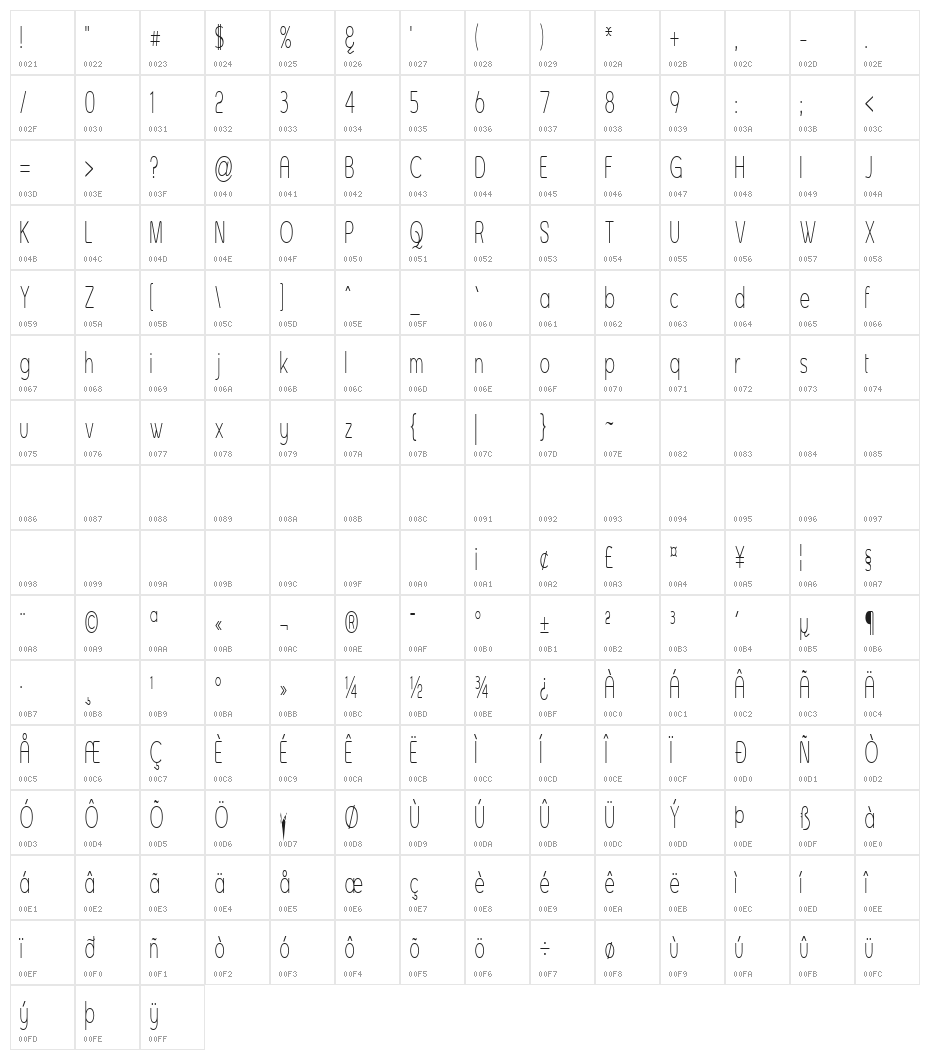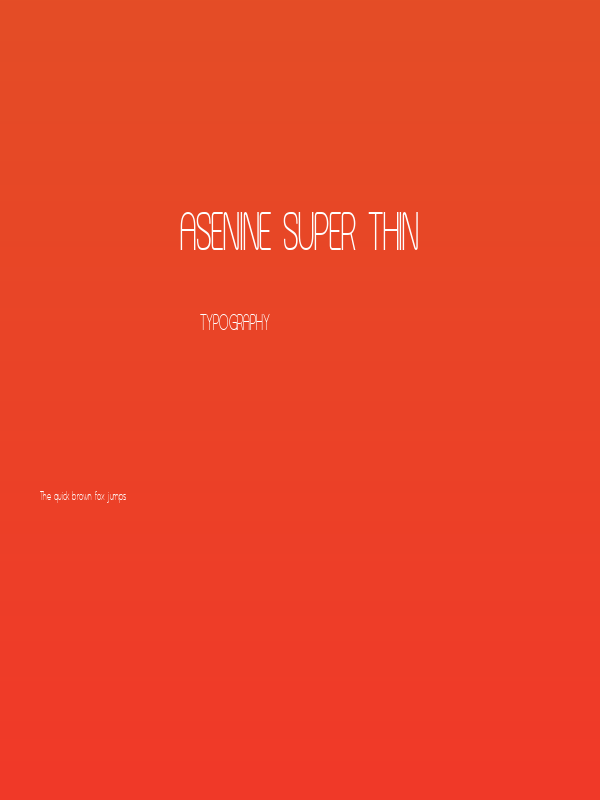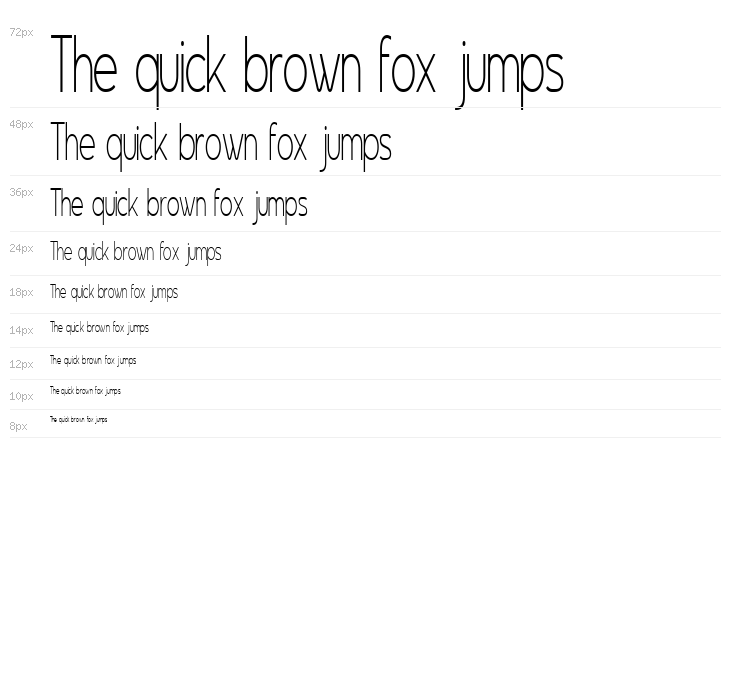
Asenine Super Thin Font
Asenine Super Thin Description
This font features an ultra-thin, elegant design with a modern aesthetic. Its characters are elongated and sleek, providing a sophisticated and airy feel. The uppercase and lowercase letters maintain a consistent height, contributing to a uniform appearance. The numerals and special characters are crafted with the same thin strokes, ensuring a cohesive look across all elements. This font's minimalistic style makes it ideal for contemporary design projects where clarity and elegance are paramount.
| Proposed Projects | Ideal for fashion magazines, luxury branding, minimalist posters, and modern web design. |